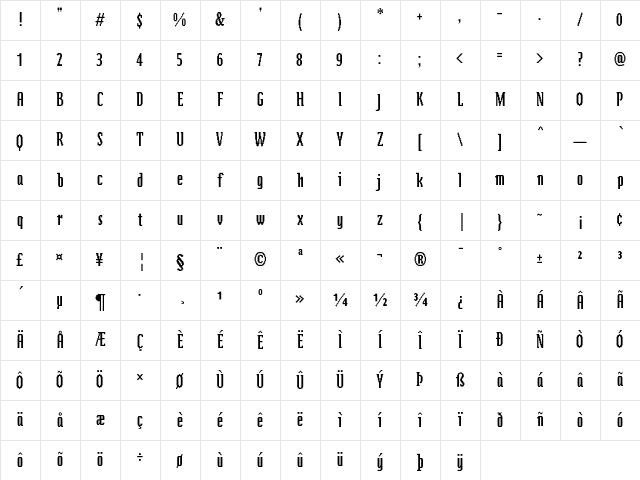
Zeitgeist MT Condensed Free Font
Zeitgeist MT Condensed
Style: Condensed
Complete Zeitgeist MT Condensed glyph index. Displaying only characters natively supported by Zeitgeist MT Condensed font.
Design Context for Zeitgeist MT
Zeitgeist MT is a composed and adaptable typeface that performs quietly and consistently across a wide range of design contexts. Its narrow stance lets it pack a punch even in space-constrained designs.